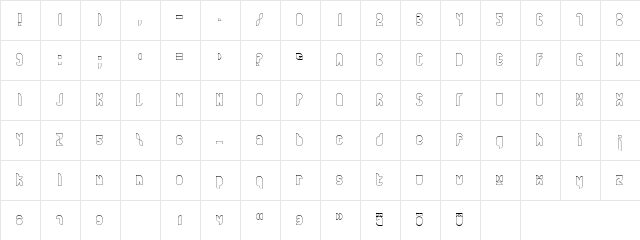
Bath BlackOutline
Design Context for Bath Typeface
Bath is built around its visual character rather than neutral utility — its distinctive forms are designed to make an impression at display sizes.
Font Pairing: Pair with a clean neutral sans-serif for body copy to let Bath's character lead without overwhelming the composition.
Pro Tip: Use Bath exclusively at display sizes — it was designed to be seen, not read at length. Let a neutral companion handle body copy.